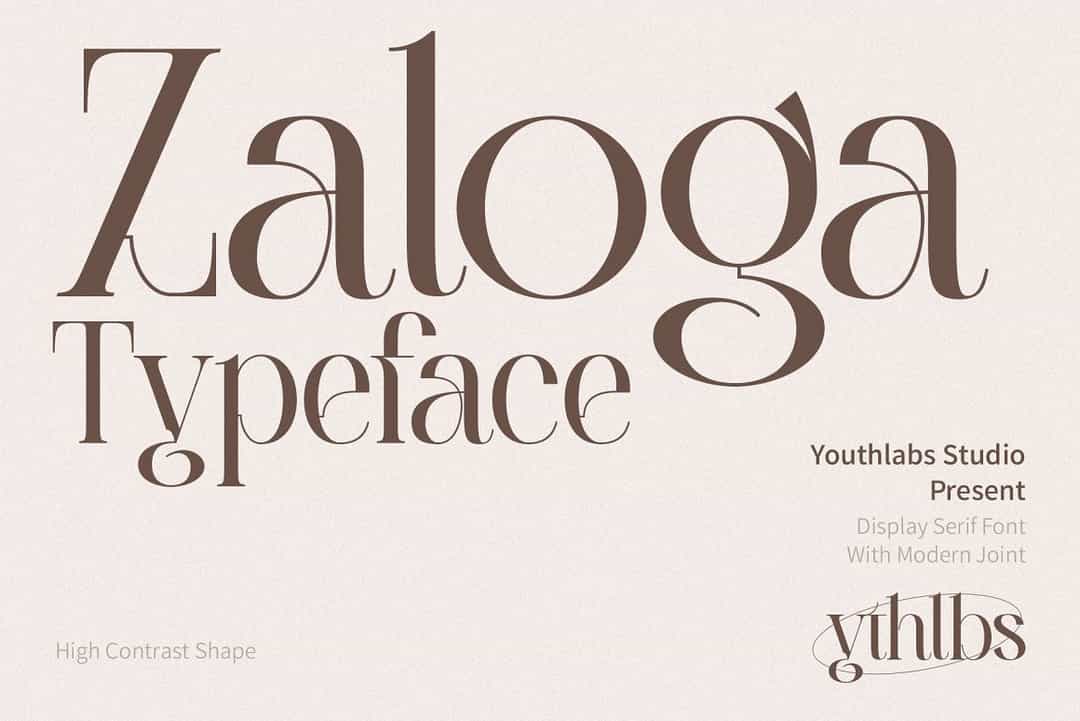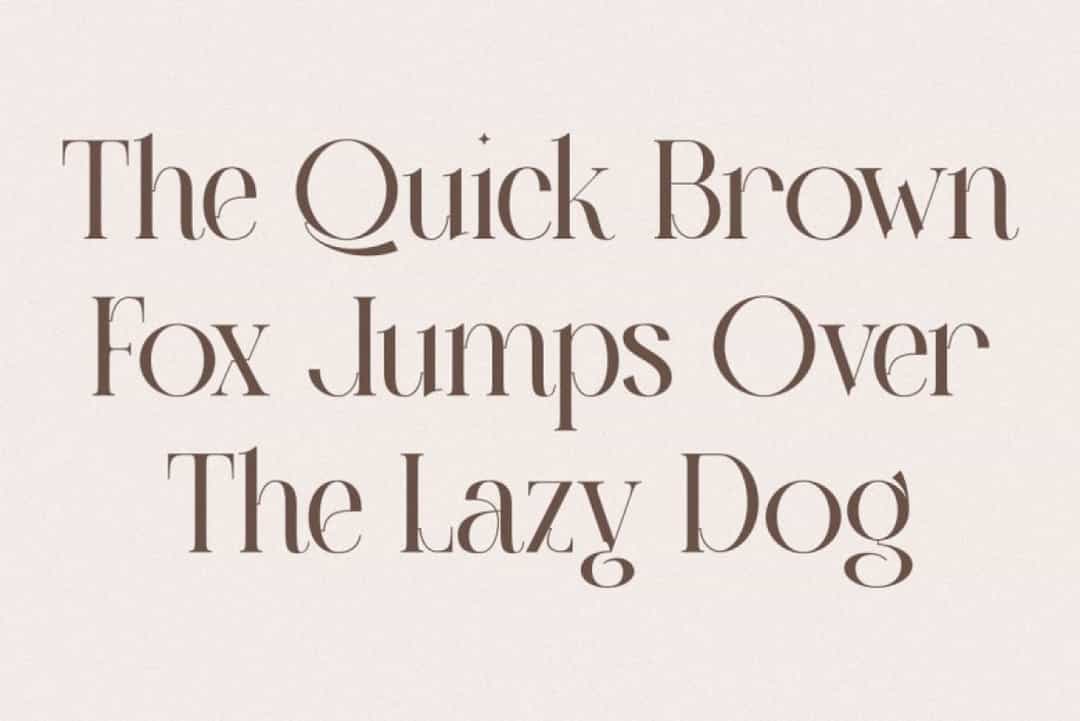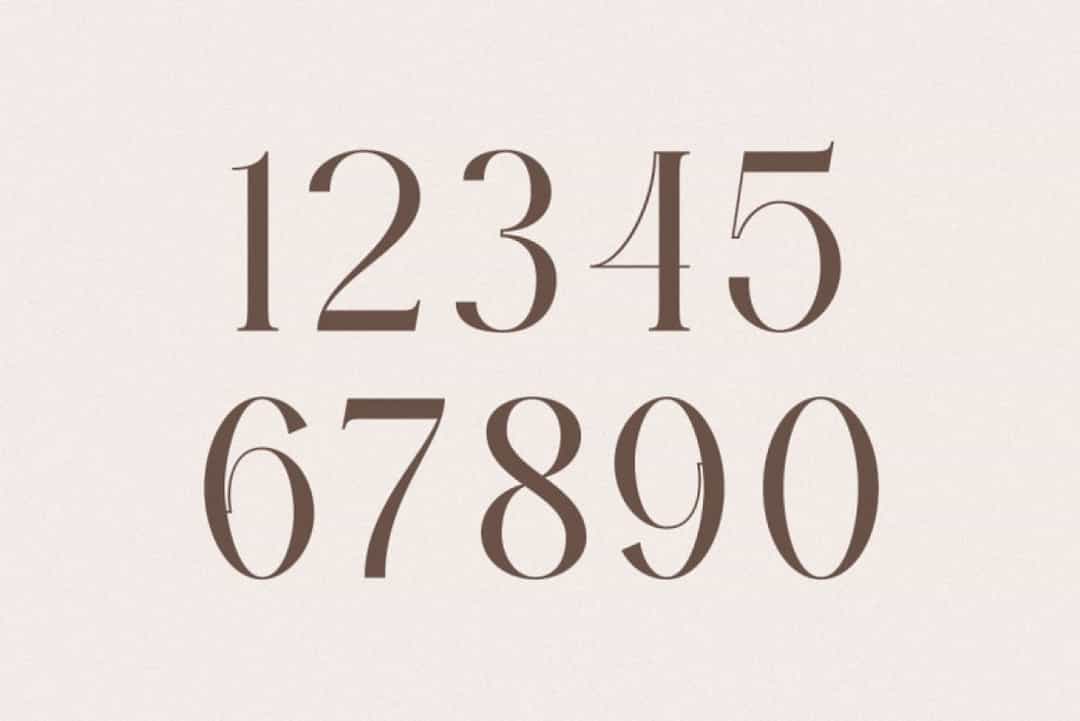
ZALOGA is an e-display serif typeface that adds an up-to-the-moment aesthetic to any design project, making it a fantastic choice for logos of fashion brands. Thanks to its variety of shapes and styles, ZALOGA makes applying different design functions much simpler, such as designs, typography, magazine branding, fashion advertising etc.